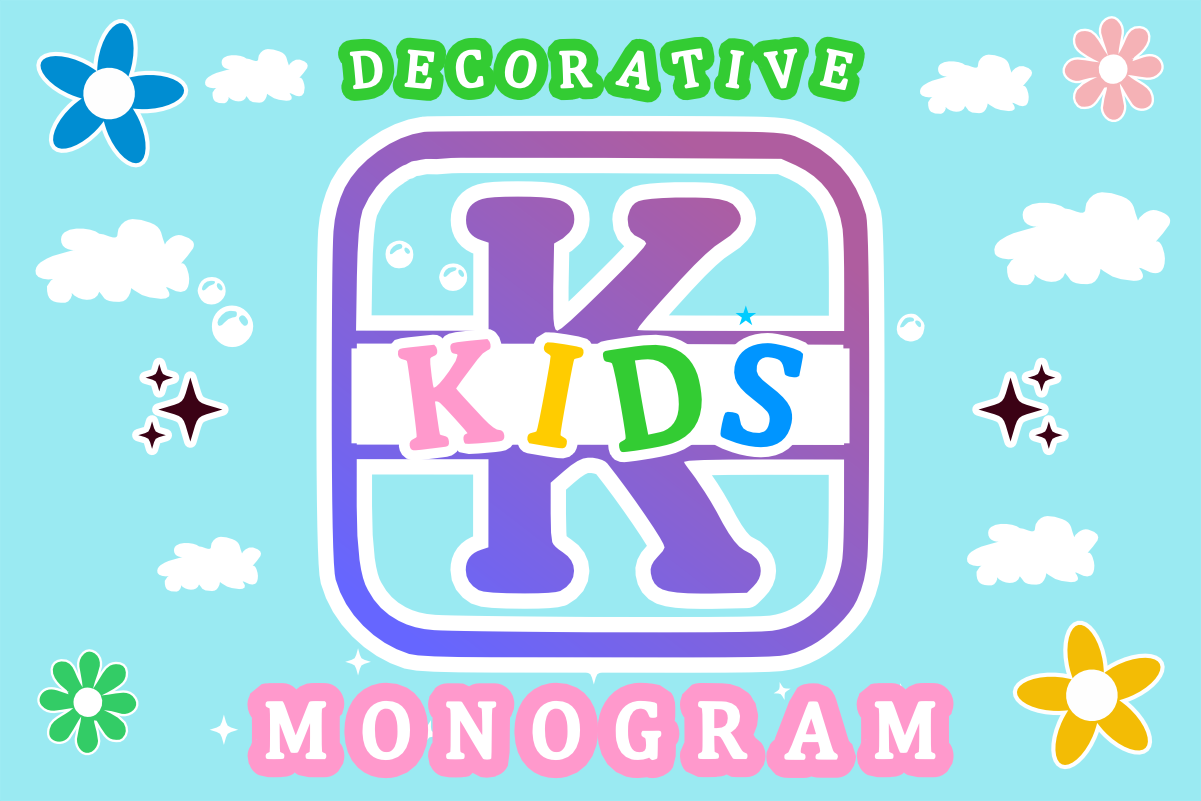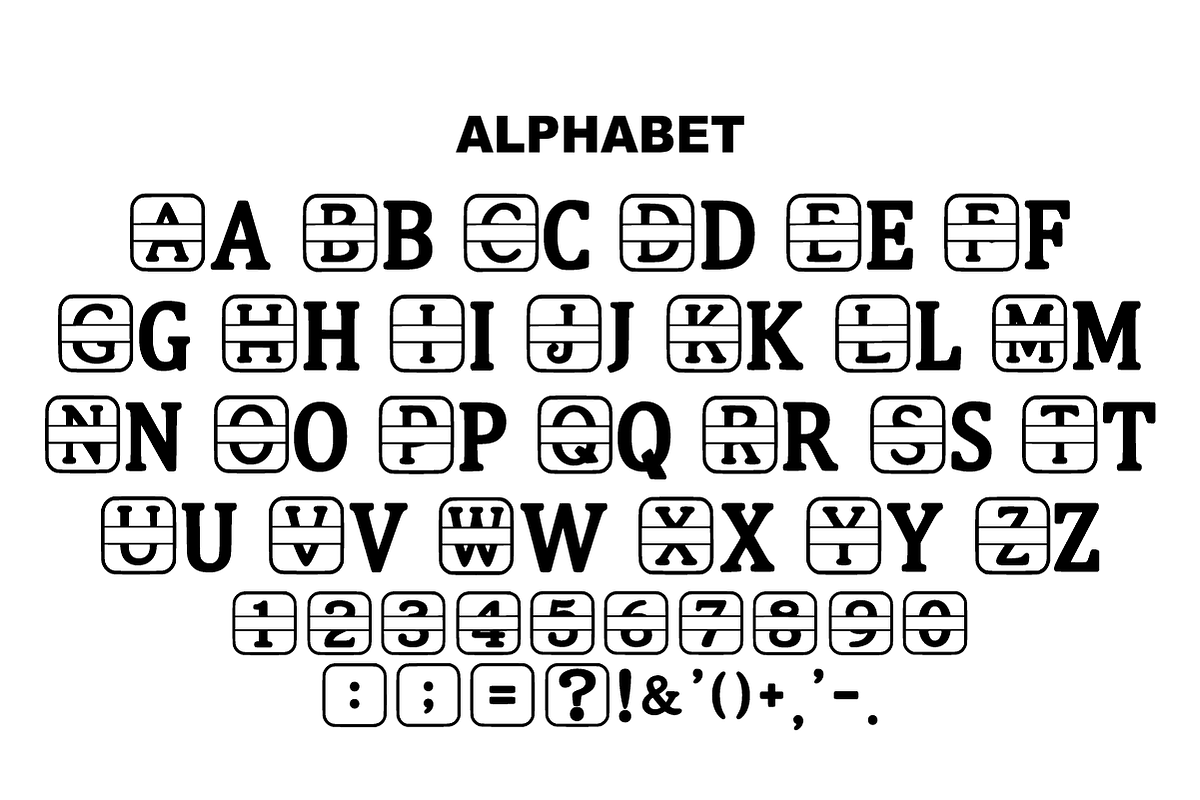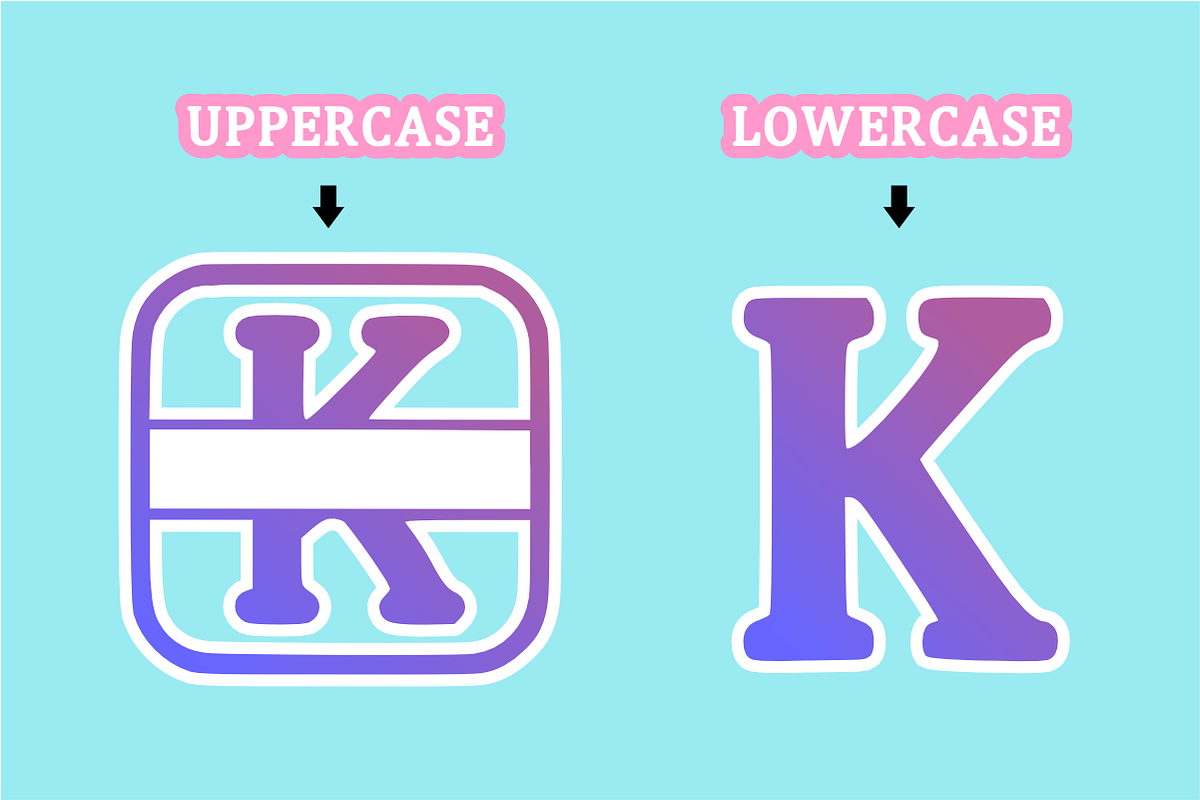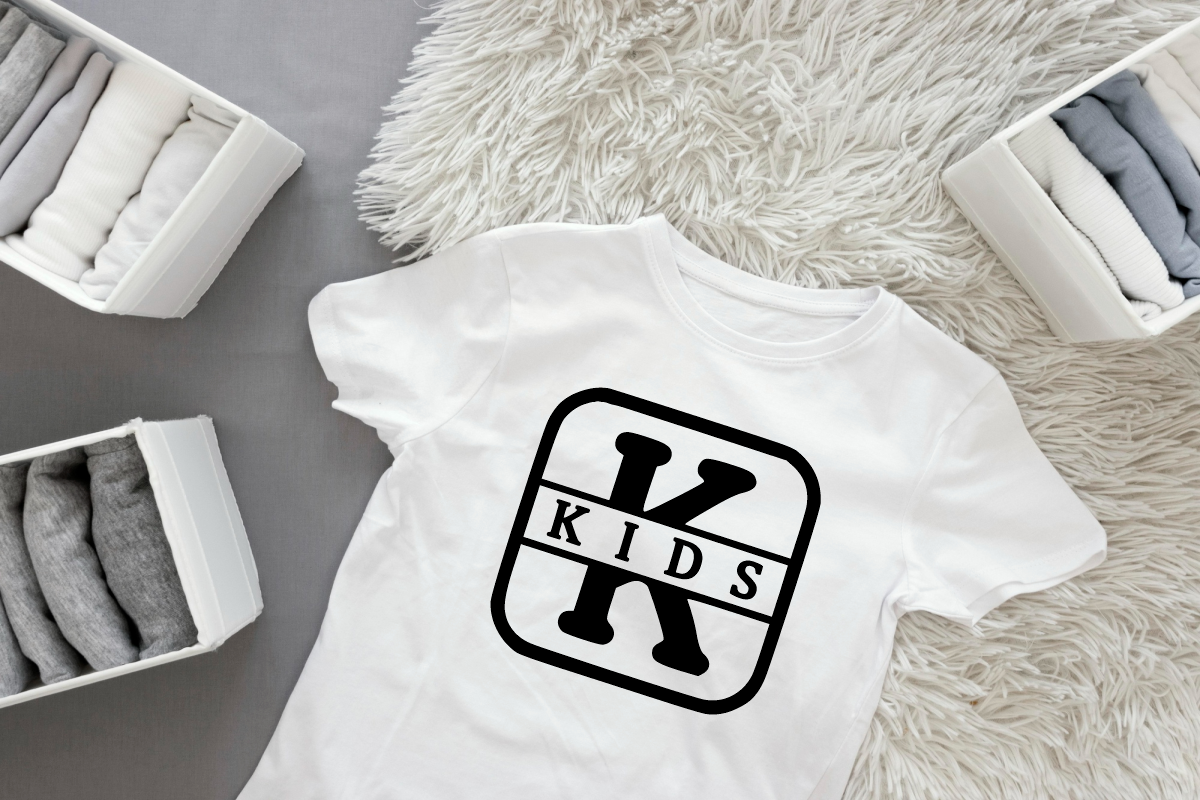
Kids Monogram - Playful Split Font
Kids Monogram is a cute, chunky display font featuring a classic split monogram style designed specifically for personalization. Perfect for creating customized kids' name designs, nursery decor, and children's crafts, this playful font allows you to easily insert names inside the split spaces. Every character is cleanly vectorized to guarantee smooth, effortless weeding and cutting on Cricut and Silhouette machines.
Uppercase Character Set (Split Monogram Design)
Numbers & Basic Punctuation
Ideal For:
Personalized kids' apparel, baby onesies, and custom t-shirts
Nursery wall art, custom name signs, and bedroom decorations
Back-to-school labels, water bottle decals, and school bag tags
Birthday party invitations, personalized favors, and banners
Cute custom die-cut stickers and planner overlays
Cricut, Silhouette, and DIY vinyl crafting projects